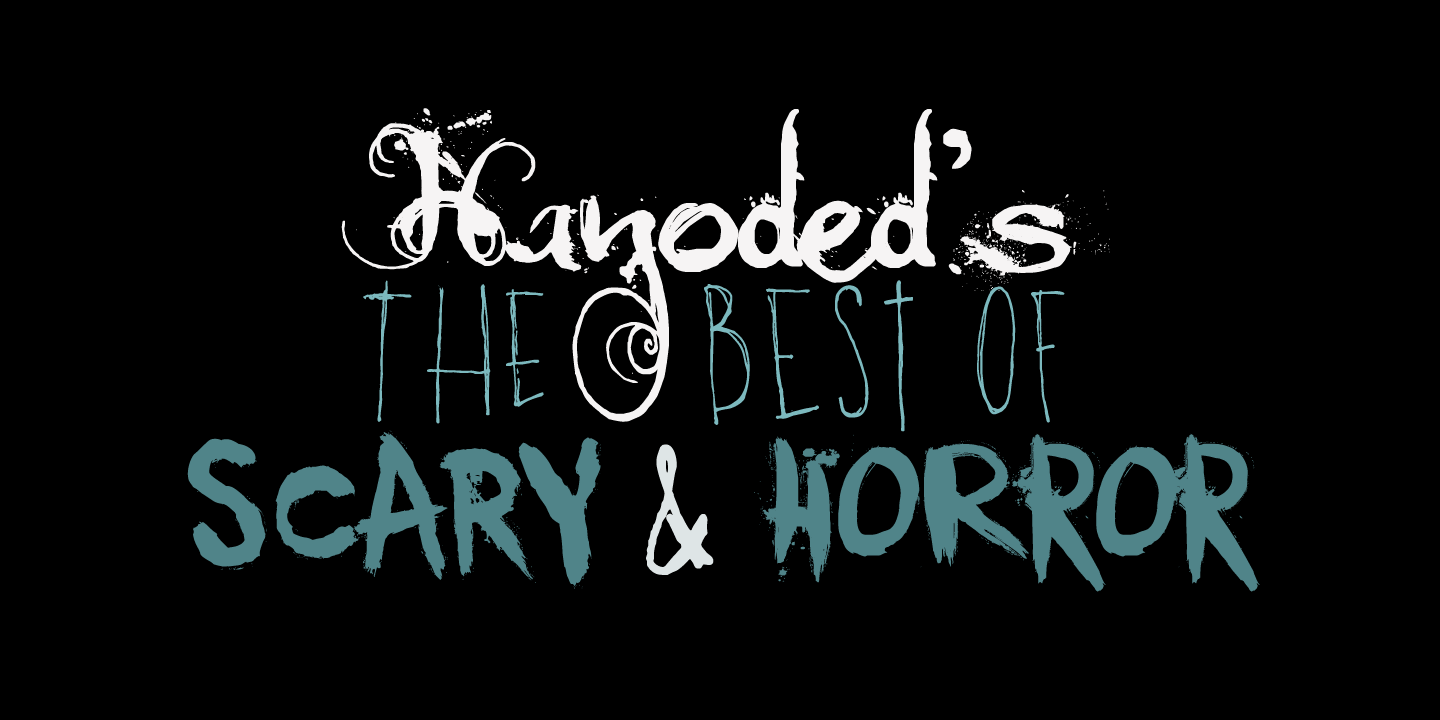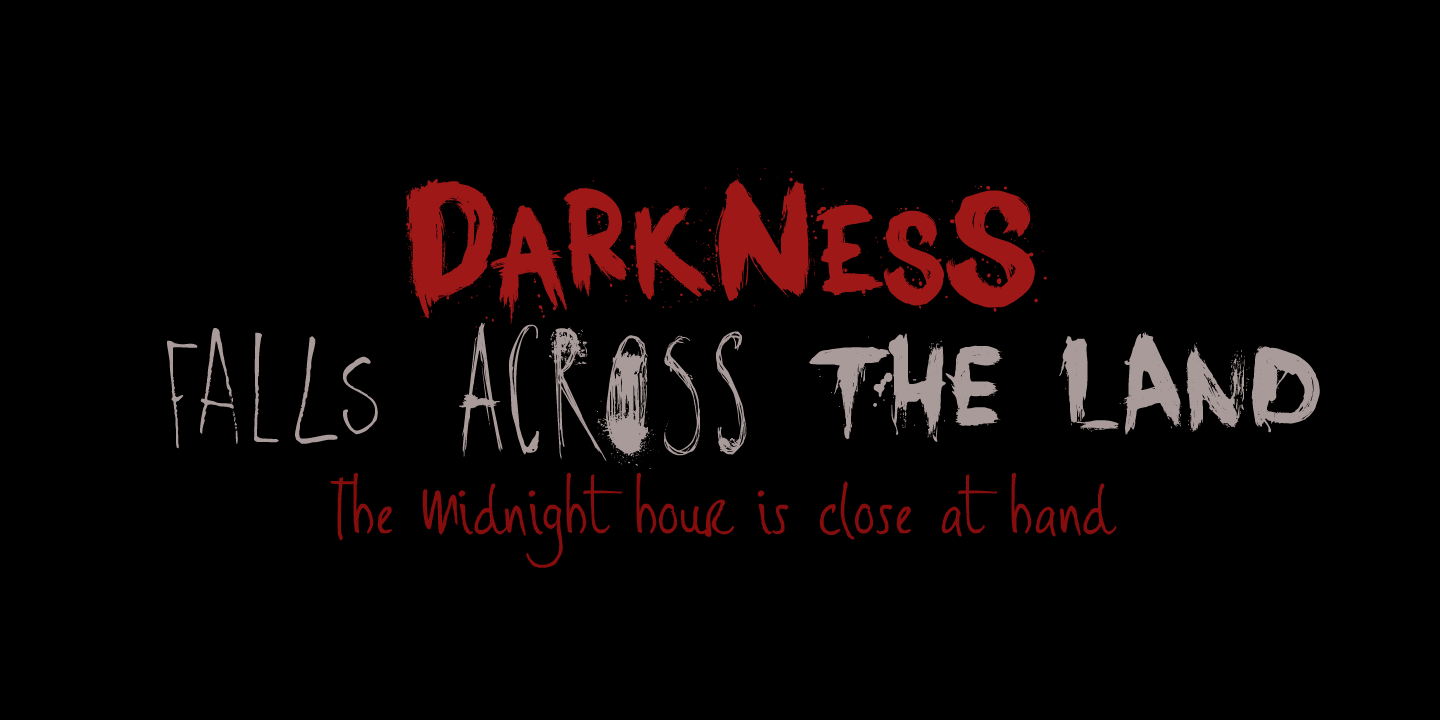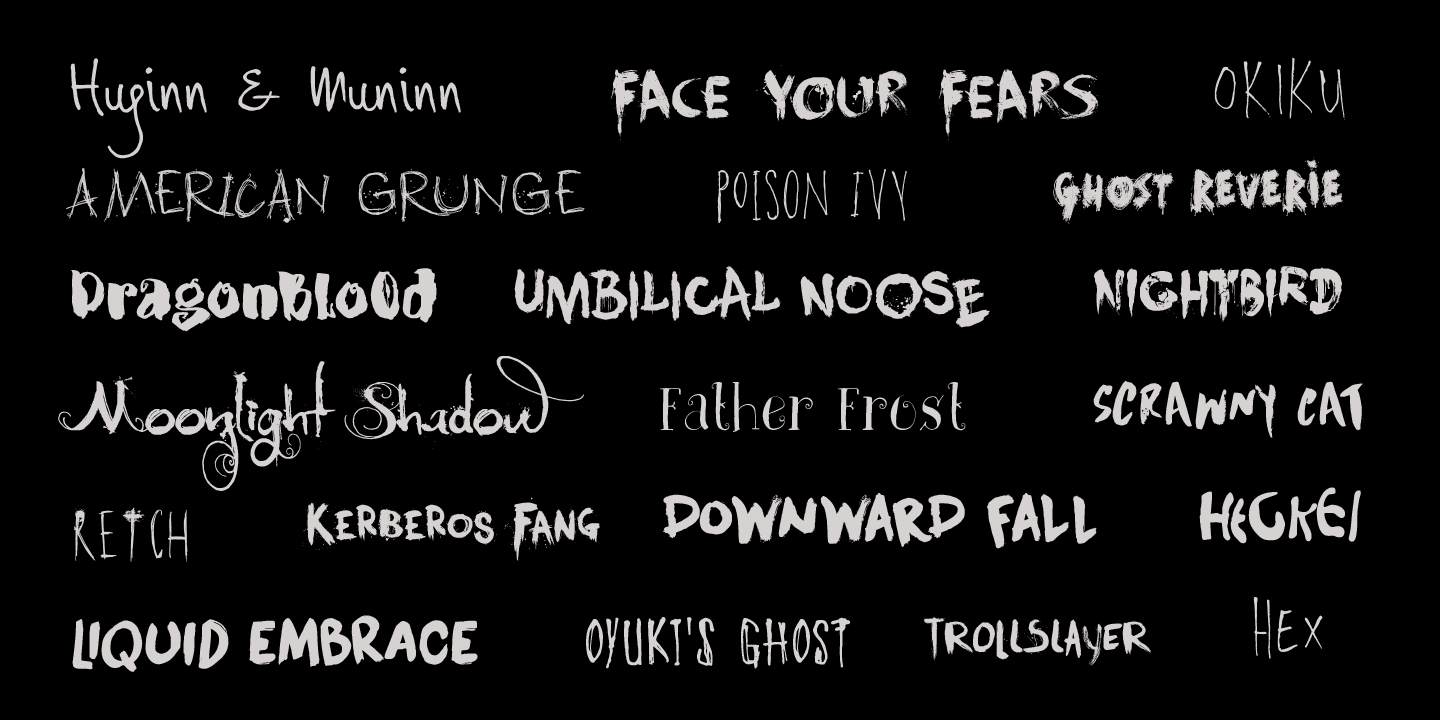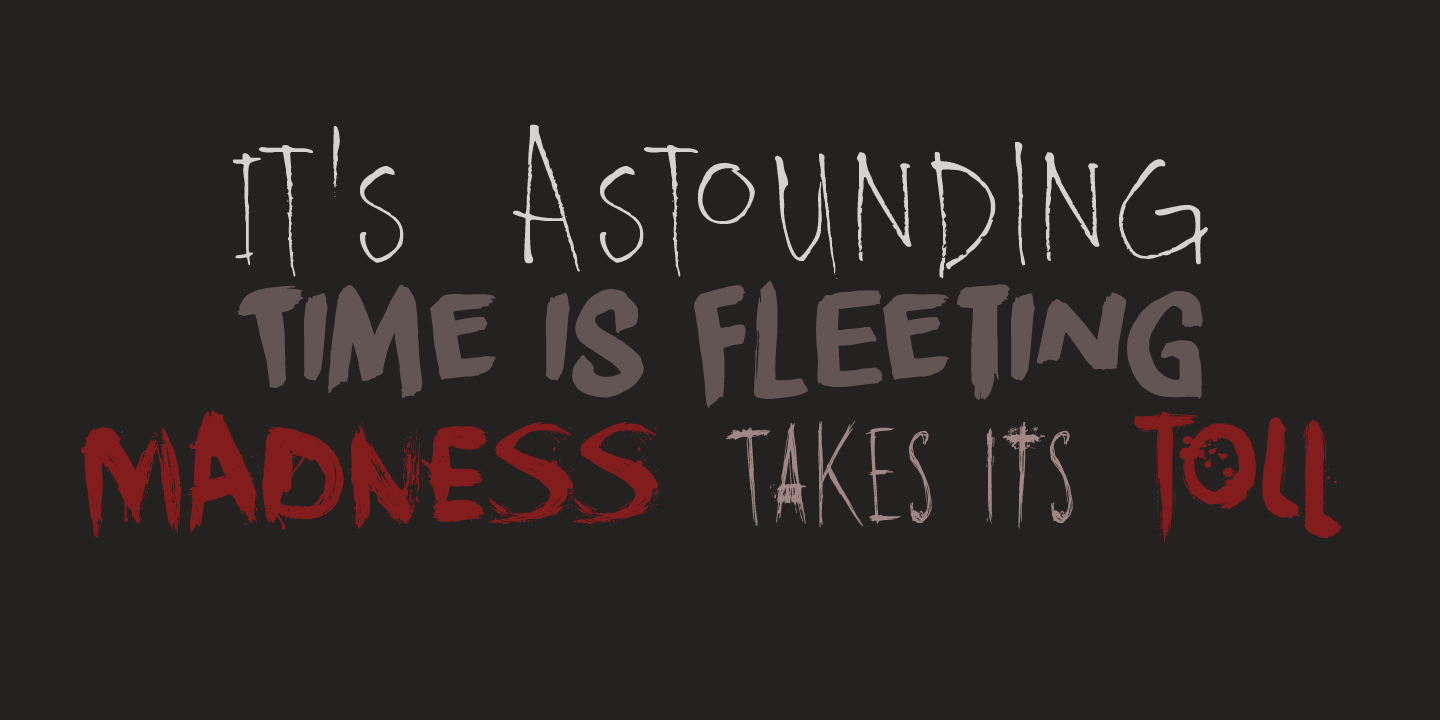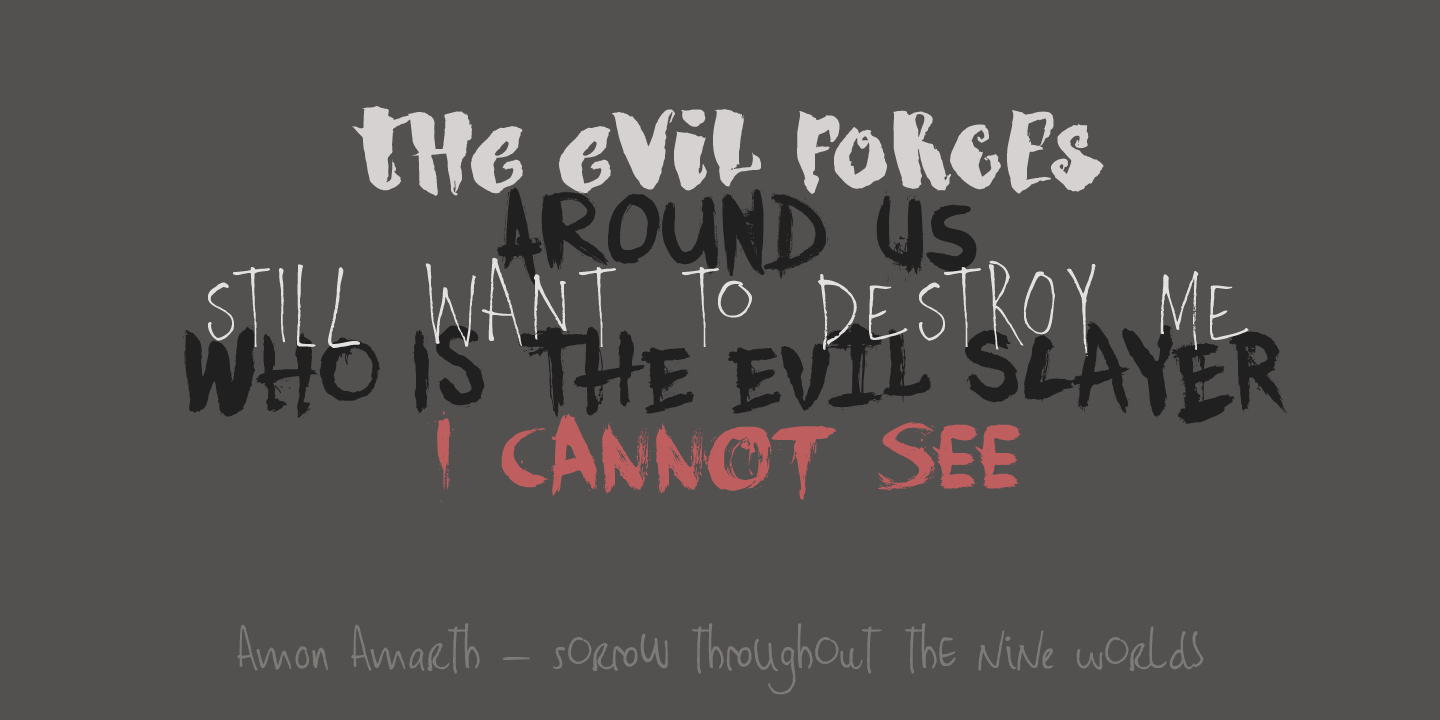
Hanoded's Best Of Scary & Horror Bundle (20 fonts)
This rather spooky bundle consists of 20 handmade fonts with an ‘evil’ twist. Use them for Halloween, T-shirts or magazines. I am sure the effect will leave your clients shivering!
20 Font Collection:
American Grunge,
Downward Fall,
Dragonblood,
Face Your Fears,
Father Frost,
Ghost Reverie,
Heckel,
Hex,
Huginn And Muninn,
Kerberos Fang,
Liquid Embrace,
Moonlight Shadow,
Nightbird,
Okiku,
Oyuki's Ghost,
Poison,
Retch,
Scrawny Cat,
Trollslayer,
Umbilical Noose,